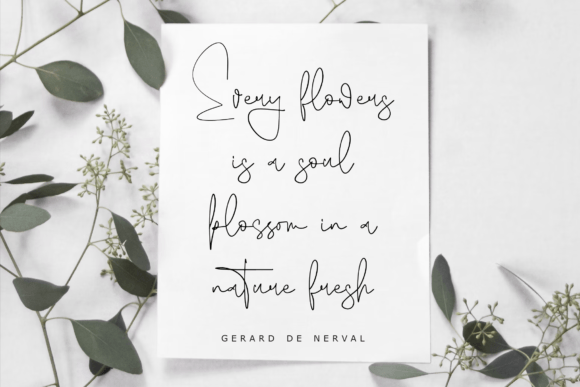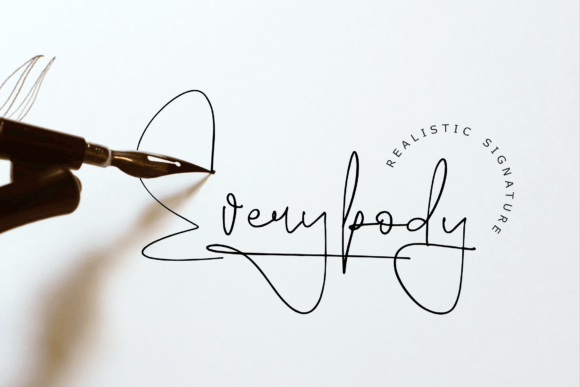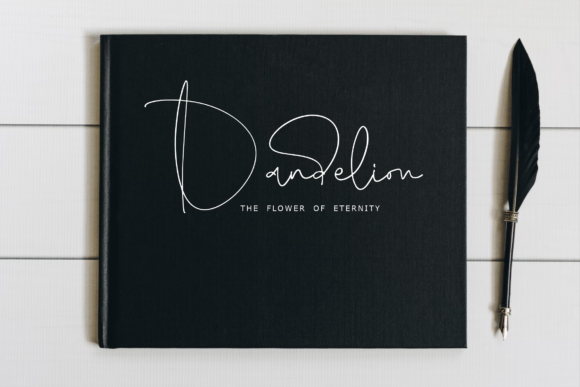
Introduction to Restonasi Font
Have you ever found yourself staring at a blank canvas, struggling to bring your creative vision to life? For many designers, this is a familiar feeling. But what if you had the perfect tool to elevate your work and make it truly stand out?
Enter the Restonasi Font, a stunning realistic signature script font that’s about to become your new best friend. With its exquisite and stylish characters, you’ll be able to create stunning logos, business cards, wedding invitations, and more. Whether you’re working on a high-profile project or a personal creative pursuit, this font is sure to help you make a lasting impression.
As a valuable resource for designers, the Restonasi Font offers a high-quality design solution that’s perfect for a wide range of creative projects. From its transparent background to its elegant style, this font is a must-have for anyone looking to take their design to the next level.
Key Features of Restonasi Font
- Unique and elegant font style with a transparent background, ideal for modern designs.
- Supports various languages, making it a versatile design tool for global projects.
- Perfect for designers who need a stylish and professional font for their creative projects, including logos, graphics, and more.
Honest Review: Restonasi Font
I recently stumbled upon the Restonasi Font and I’m excited to share my honest review with you. As a designer, I’m always on the lookout for high-quality fonts that can elevate my creative projects. And, I’m happy to say that Restonasi Font delivers.
- ✨ The font is incredibly versatile and works well for a wide range of design projects, from logos to typography-based designs.
- ✨ The font’s transparent background feature allows for seamless integration with any background design, giving designers more creative freedom.
While the Restonasi Font is an excellent addition to any designer’s toolkit, I do have a few limitations to mention:
- ⚠️ The font’s character set is limited, which may not be suitable for complex design projects that require a wide range of characters.
Overall, I’m impressed with the Restonasi Font and would highly recommend it to designers looking for a high-quality, free font that can help bring their creative projects to life.
Tips for Getting the Most Out of Restonasi Font
Restonasi Font is a high-quality font with a transparent background, making it perfect for creative projects. Some tips for getting the most out of it include:
1. Experiment with different font sizes and styles to add visual interest to your design.
2. Use the transparent background to create a seamless design.
Restonasi Font is a versatile design resource that can be used in a variety of creative projects, including:
1. Branding materials, such as logos and business cards.
2. Social media graphics and advertisements.
3. Infographics and presentations.
Alternatives to Restonasi Font
Alegreya Sans is a modern, sans-serif font ideal for creative projects requiring high-quality typography. Its clean lines and transparent background make it perfect for background usage in design elements. Alegreya Sans is a free download, suitable for designers seeking a sophisticated look.
Compared to Restonasi Font, Alegreya Sans offers a more minimalist approach while maintaining a high level of readability. It is an excellent choice for designers who want a clean and modern design resource.
Lato Font is a popular sans-serif font that offers a high level of versatility. It is suitable for various design projects, from print materials to digital interfaces. Its clean lines and transparent background make it an excellent choice for designers who require a high-quality design resource.